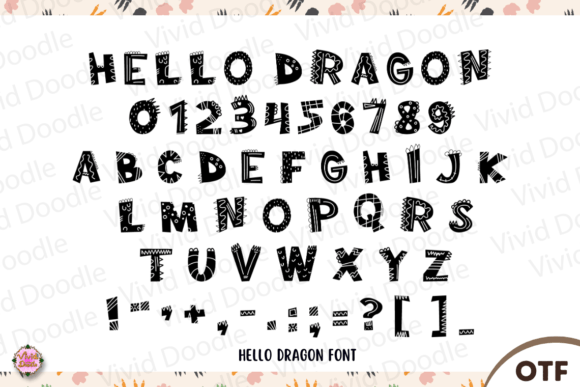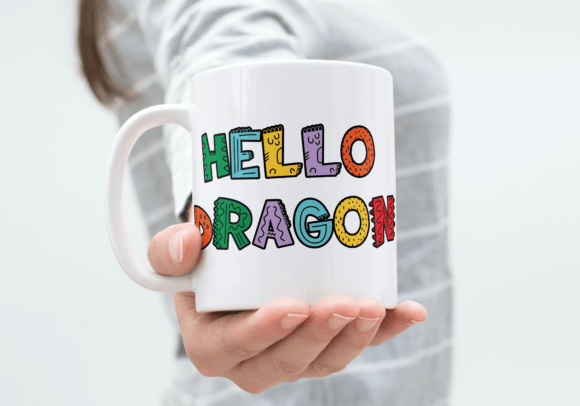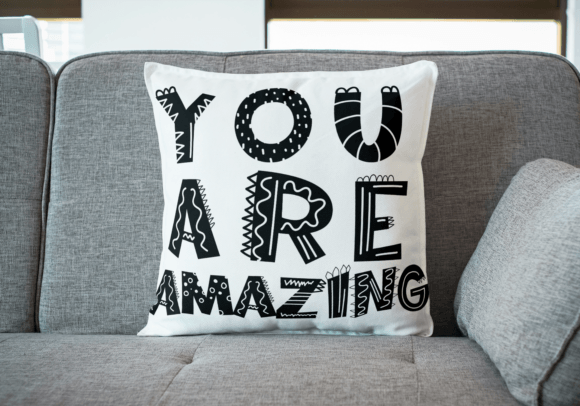
Introduction to Hello Dragon Font
Have you ever stared at a blank canvas, pencil in hand, and let your imagination run wild? That’s exactly where creativity happens. For designers, artists, and anyone who loves to bring their ideas to life, the right design resources can make all the difference. That’s why we’re excited to introduce you to the Hello Dragon Font – a whimsical and versatile typeface that’s about to become your new best friend.
With its playful, dragon-inspired elements, this font is perfect for a wide range of creative projects, from children’s book covers and cartoon illustrations to coloring book designs and more. Whether you’re working on a free download or a high-quality design project, the Hello Dragon Font is a valuable resource that will add a touch of magic to your work. Plus, with its transparent background, you can easily use it in any design scenario.
- Unique and creative design ideal for various projects, including posters, flyers, and creative marketing materials.
- Perfect for designers working on creative projects, offering a unique and eye-catching element to elevate their designs.
Honest Review: Hello Dragon Font
One of the things that works well with this font is its versatility. I used it for a project with a transparent background, and the font stood out beautifully. The designer has done a great job in creating a high-quality font that’s perfect for digital design.
Here are some of the key features that I liked about the Hello Dragon Font:
- ✨ Unique and quirky design that adds character to any project
- ✨ Perfect for creative projects with a modern twist
- ✨ High-quality font that’s great for digital design
However, I did encounter a few limitations with the font:
- ⚠️ Limited support for some font styles and sizes
- ⚠️ Not ideal for large-scale text or headings
Overall, I’m impressed with the Hello Dragon Font and would recommend it to designers looking for a unique and creative font for their projects. While it has its limitations, it’s a great design resource that’s perfect for smaller-scale projects or designs that require a quirky touch.
Hello Dragon Font
The Hello Dragon Font is a high-quality design resource ideal for creative projects that require a unique touch. With its transparent background, this font is perfect for adding a pop of color and personality to your designs.
Tips for Getting the Most Out of the Hello Dragon Font
To get the most out of the Hello Dragon Font, use it in combination with other design elements, experiment with different font sizes and colors, and adjust the font style to suit your design needs.
The Hello Dragon Font is ideal for a variety of creative projects, including social media graphics, blog posts, and marketing materials. Its unique design and transparent background make it perfect for adding a touch of personality to your designs.